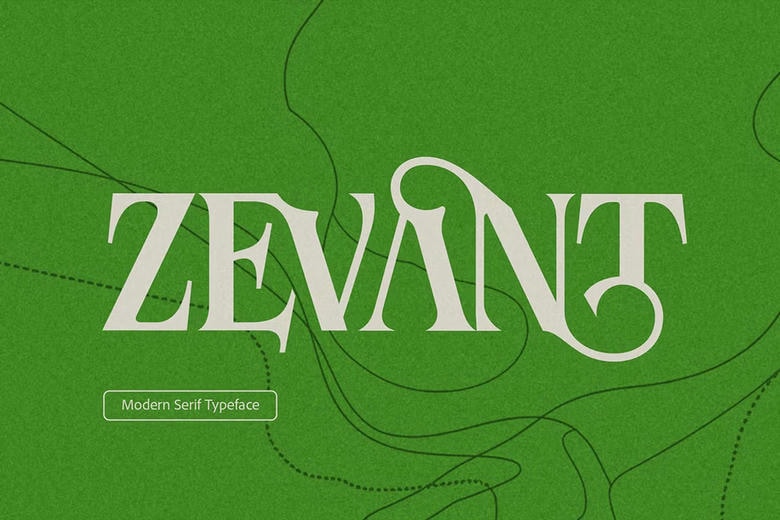
Zevant Font
Zevant is a serif font that has been designed in a highly artistic manner to give your projects a professional leaque. Due to its ornamental characteristics such as the double serifs, this font expresses class and professionalism when used in any project.
The font has a semi-moderne look and combines classic serif and more modern curves, making the Zevant suitable for branding, magazines, letters, packages, etc. The theme is aimed at both opulent and stylish look but provides a highly theatrical and elegant typographical experience.
Zevant Serif Font